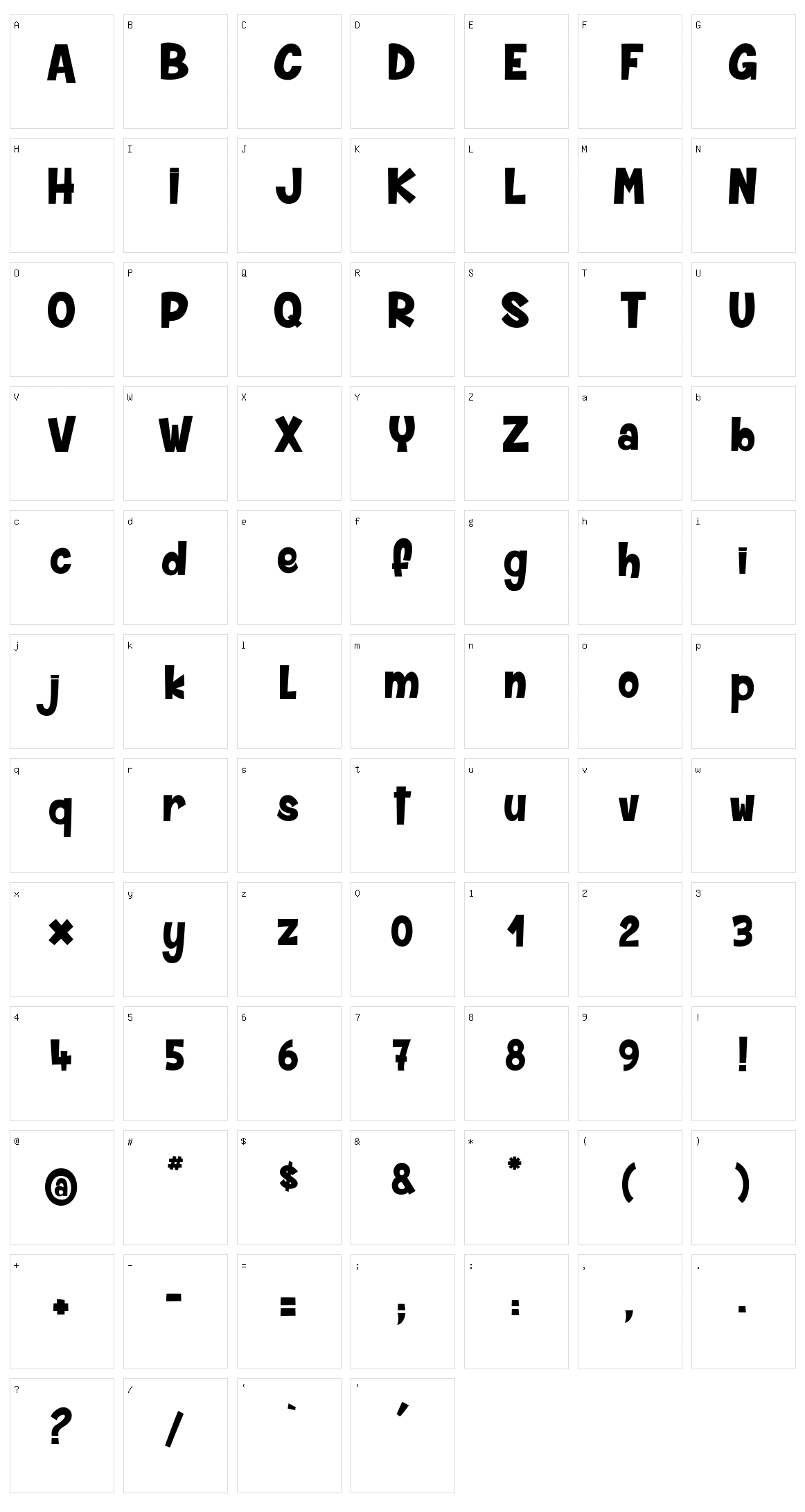
The free font Skater Girls Rock is carefully designed by dcoxy - Greg Medina, showcasing a thoughtful balance of creativity and usability and falls under the Cartoon font style. When you download the ZIP file, it contains only 31.79 KB of font files, making it lightweight and quick to download. Please review the license details below to understand permitted usage and distribution rights. If license information is not available, we recommend using this font for personal projects only or contacting the author directly for commercial usage permissions.